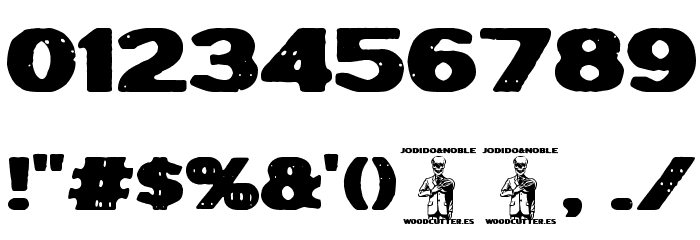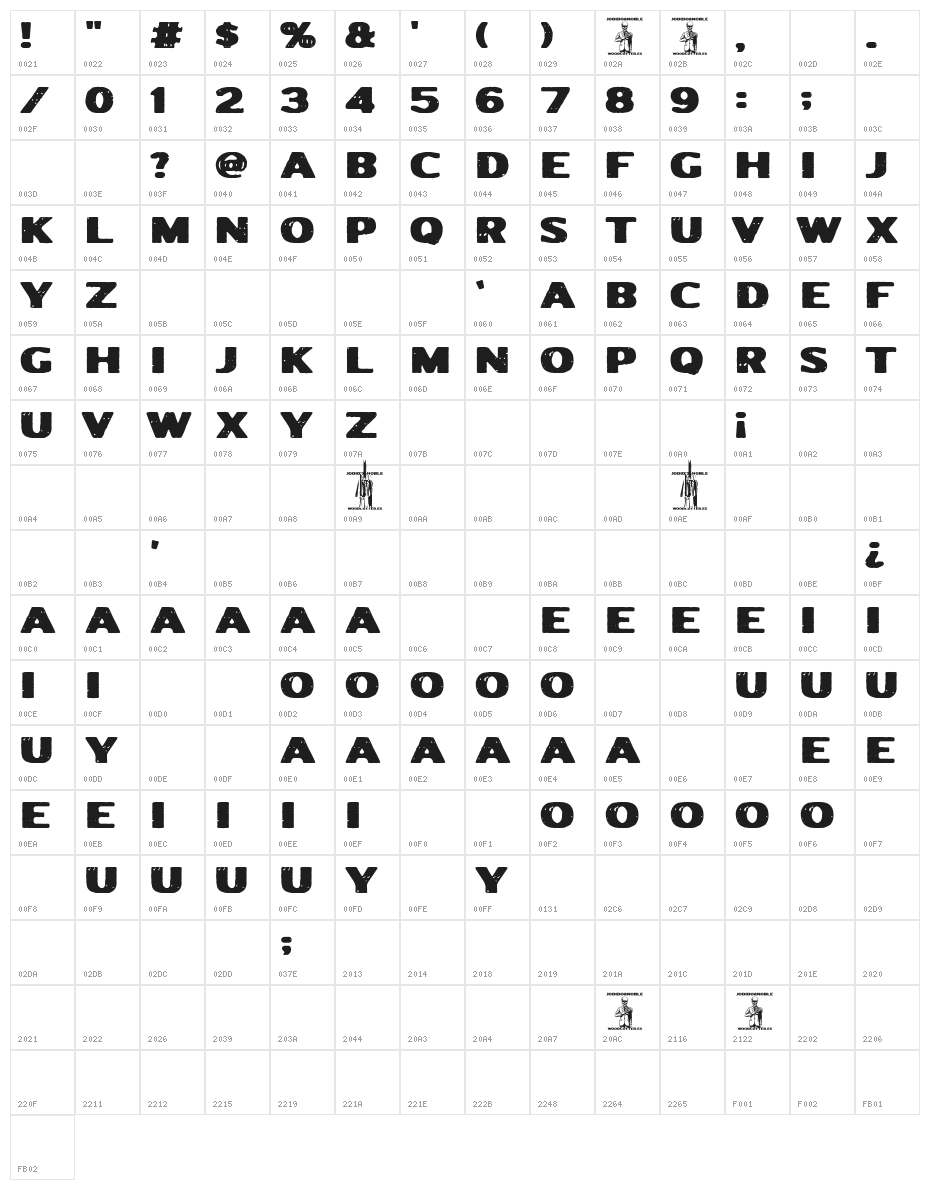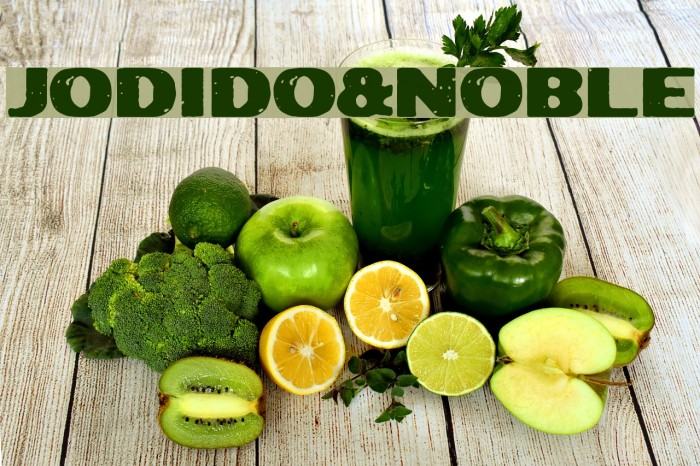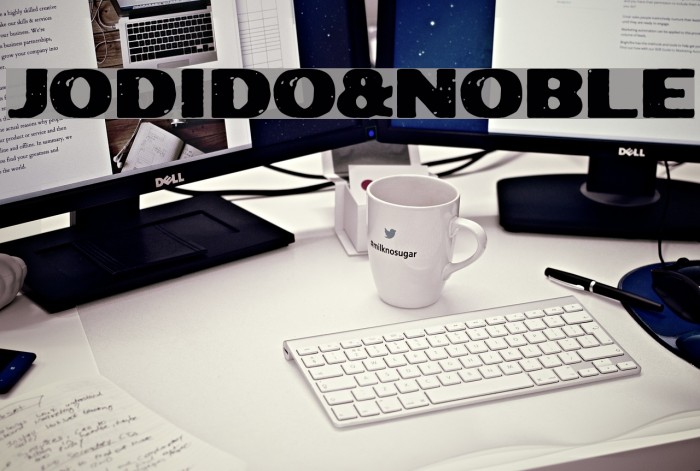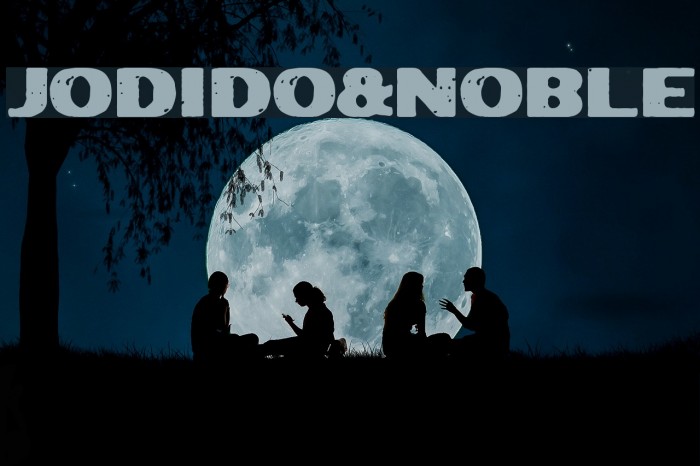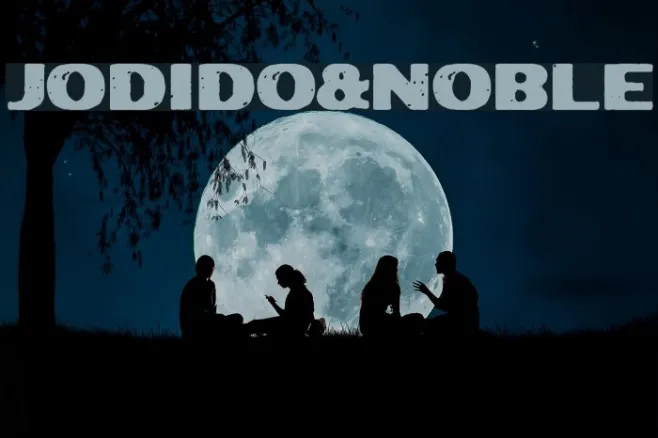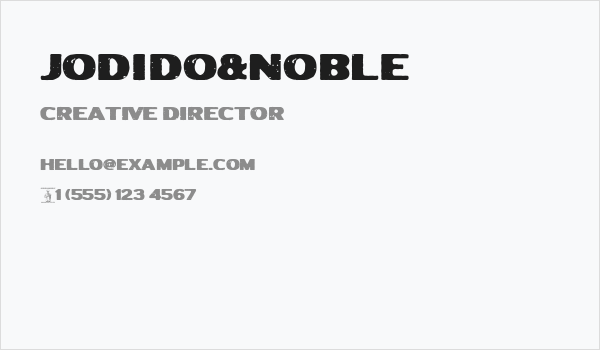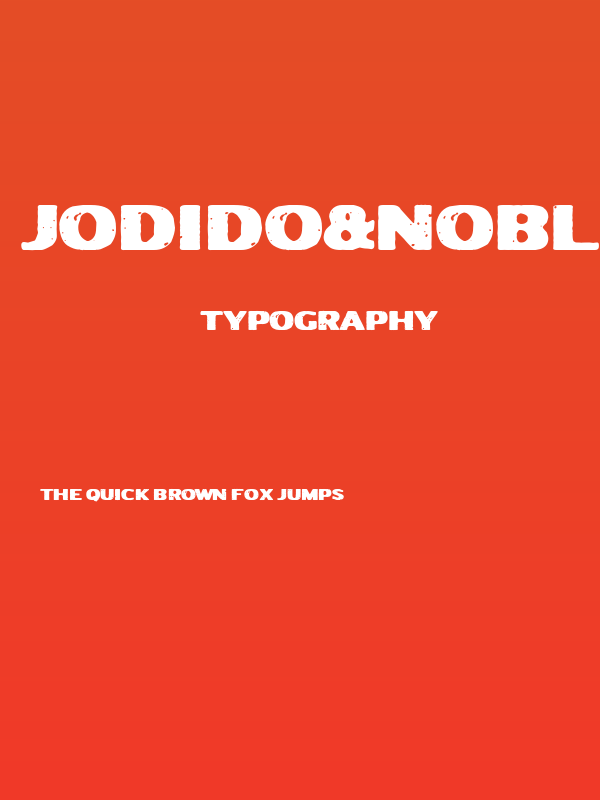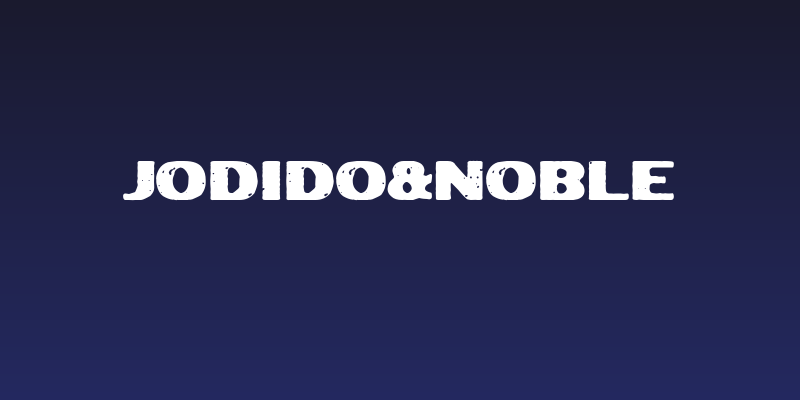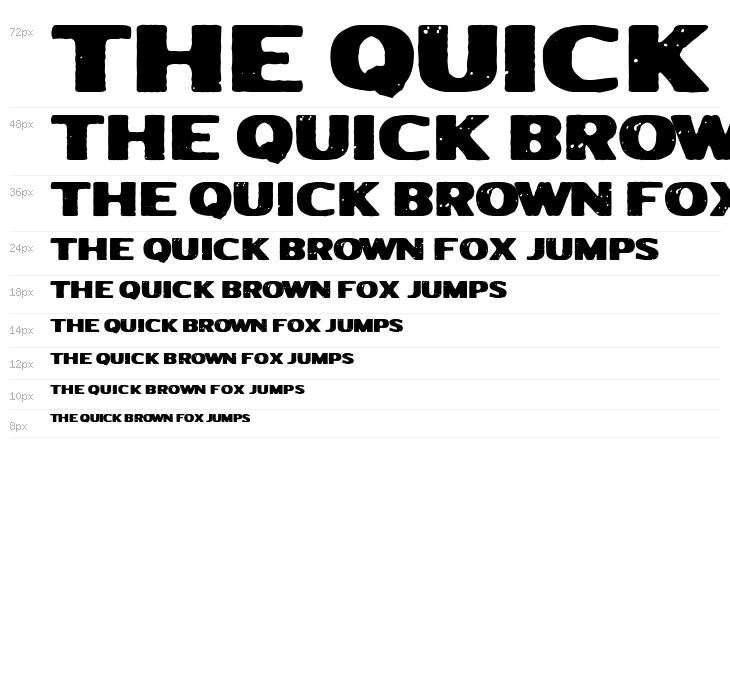
Jodido&Noble Font
Jodido&Noble Description
This font features a bold and distressed style, characterized by its rough, textured appearance. The uppercase letters are prominent and impactful, making it suitable for attention-grabbing designs. The numerals and special characters maintain the same distressed look, adding to the overall rugged aesthetic. The font's design suggests a vintage or grunge influence, perfect for projects that require a raw and edgy feel. Its boldness and unique texture make it stand out in any design, ensuring that it captures the viewer's attention.
| Overall Style | Vintage, Grunge |
| Proposed Projects | Ideal for posters, album covers, branding for edgy products, and any design needing a strong, vintage feel. |